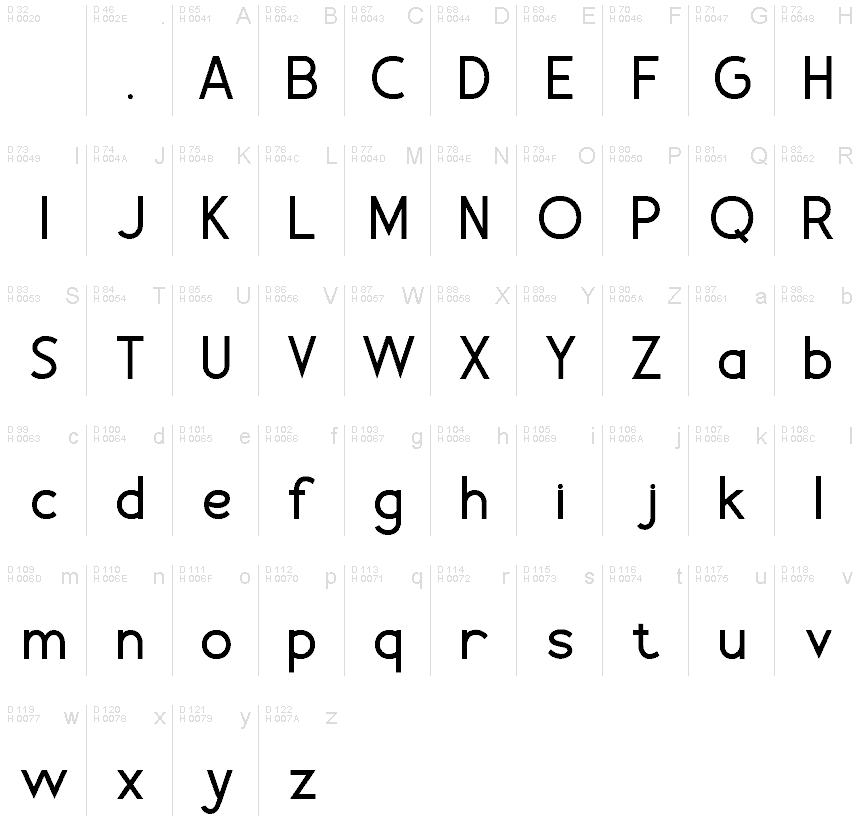
Draken Regular
Draken font is a beautifully designed sans serif by Achmad Yani. Clean, modern, and professional are a few of the features that distinguished this font which shows geometric influence on its minimalist letters.